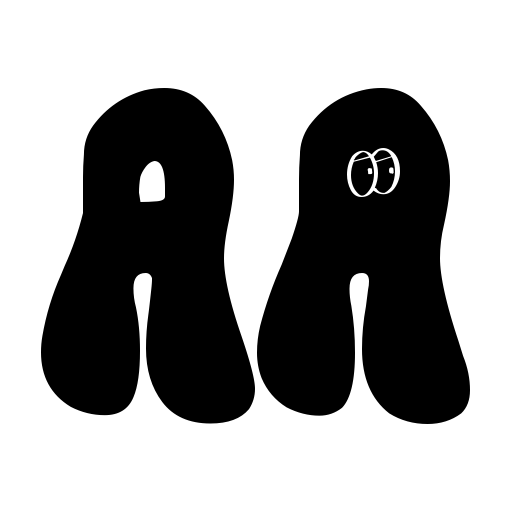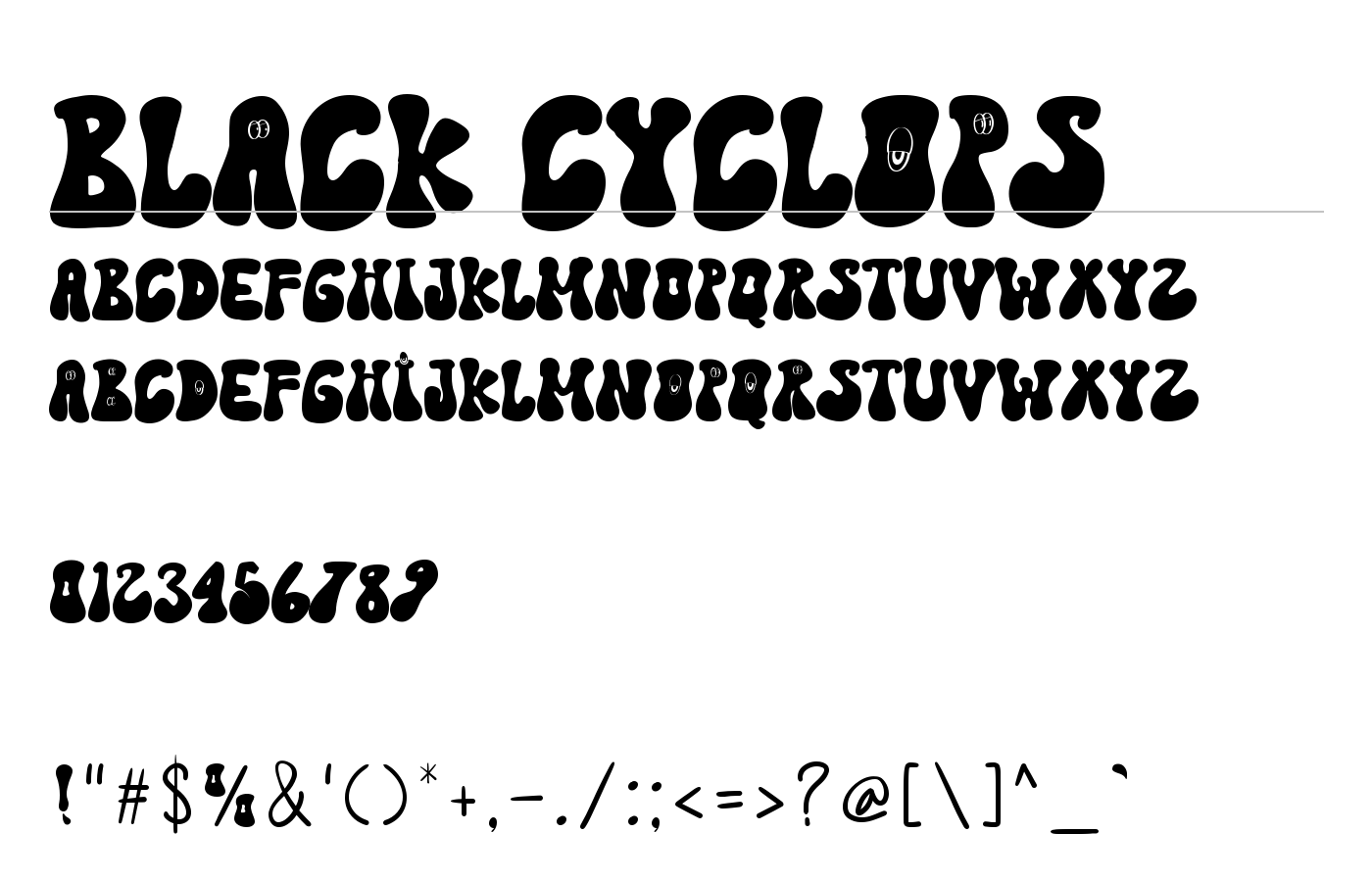
Black Cyclops is a bold, playful display font with a heavy, rounded form that radiates a fun, retro vibe. Its thick, irregular letter shapes and whimsical detail give it a quirky personality, making it perfect for creative projects, posters, and branding that want to stand out with a lighthearted, energetic feel. This font is ideal for headlines and logos where a strong, memorable impact is needed.
Black Cyclops Font
About Black Cyclops Font
| Font family | Black Cyclops Font |